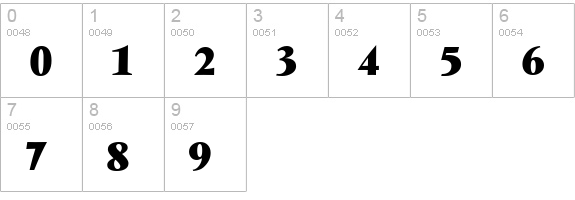
V691-Roman-Xbold-Regular is the standard, neutral variant in the V691 typeface family \xE2\x80\x94 well suited to general body text, paragraphs, and standard typographic work.
V691 Roman Xbold Regular font is a striking and modern typeface that exudes elegance and sophistication. Its bold and strong appearance makes it perfect for headlines, titles, and other design projects that require a commanding presence. The clean lines and sharp edges of this font give it a contemporary feel, while still maintaining a classic aesthetic. What makes V691 Roman Xbold Regular font even more appealing is that it is available for free download at FontsMarket.com. This means that you can easily access and use this versatile font in your projects without any cost. Whether you are a graphic designer, web developer, or just someone looking to add a touch of style to your creations, V691 Roman Xbold Regular font is a great choice that won't break the bank. Don't miss out on the opportunity to enhance your designs with this sleek and eye-catching font. Download V691 Roman Xbold Regular today and take your projects to the next level!